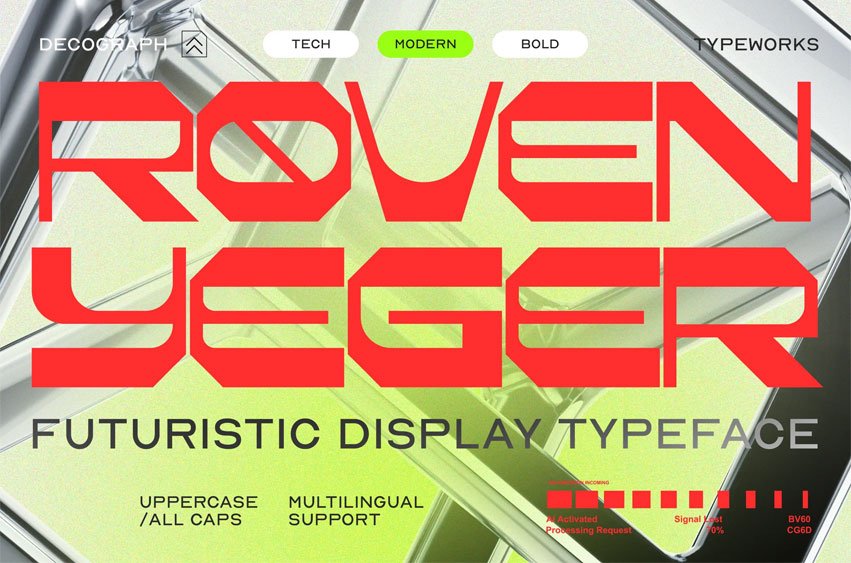
Roven Yeger Font Futuristic Tech Display Font is a bold geometric typeface inspired by modern technology and digital interfaces. Its sharp angles, structured forms, and clean lines create a sleek futuristic aesthetic that feels precise, advanced, and highly visual. The strong construction gives it excellent impact for display typography.
Designed for cutting-edge visuals, this font is perfect for projects that require a modern tech-driven identity. Whether used for UI design, branding, posters, or digital content, Roven Yeger delivers a futuristic presence with clean and powerful character.
Font Features: Uppercase Letters Numbers And Punctuation Multilingual Support Geometric Structure Clean Sharp Edges